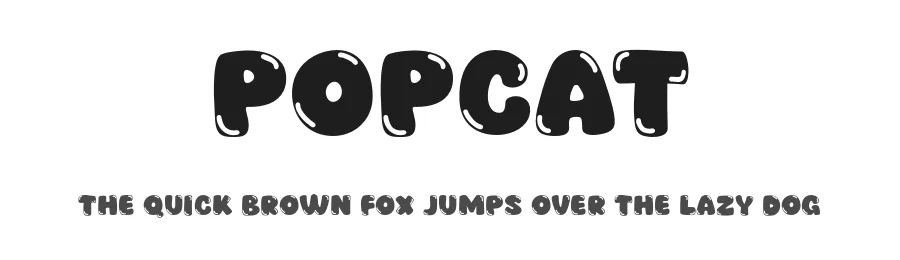
About Baby Jacky Font
Baby Jacky Specifications
| Font Family | BABY JACKY |
| Full Name | BABY JACKY |
| PostScript Name | BABYJACKYRegular |
| Designer | Minimalist Eyes |
Baby Jacky supports 197 languages.
Baby Jacky Font is a decorative font that shines as a display or heading face. Pair it with a clean sans-serif or serif font for body text β the contrast creates a clear hierarchy while the two styles stay balanced and easy to read.